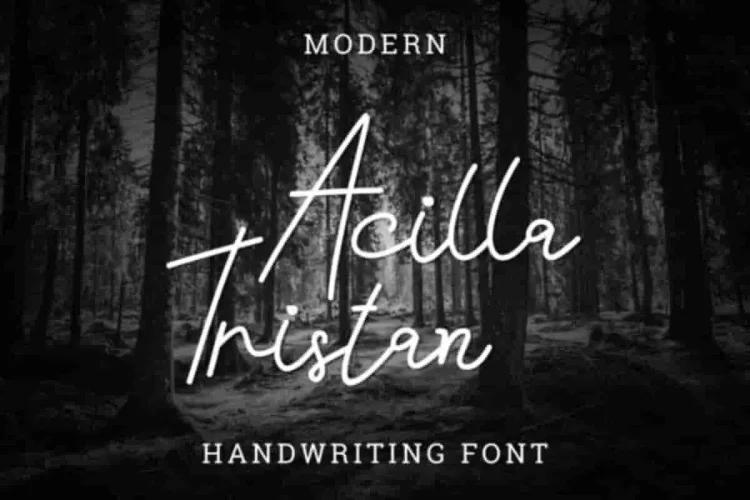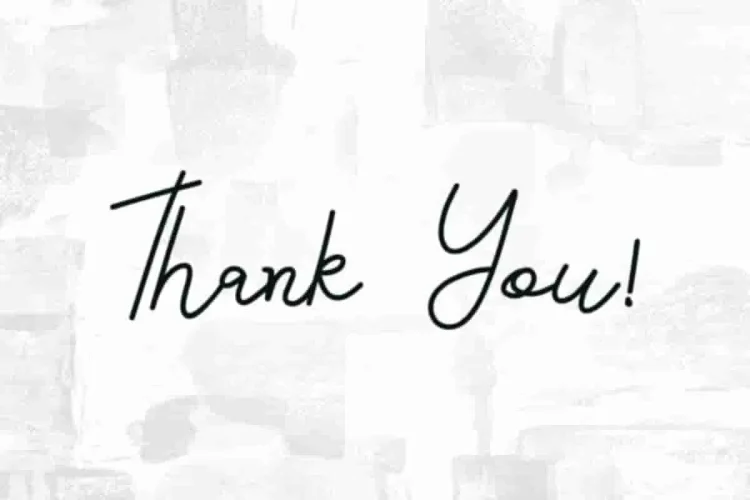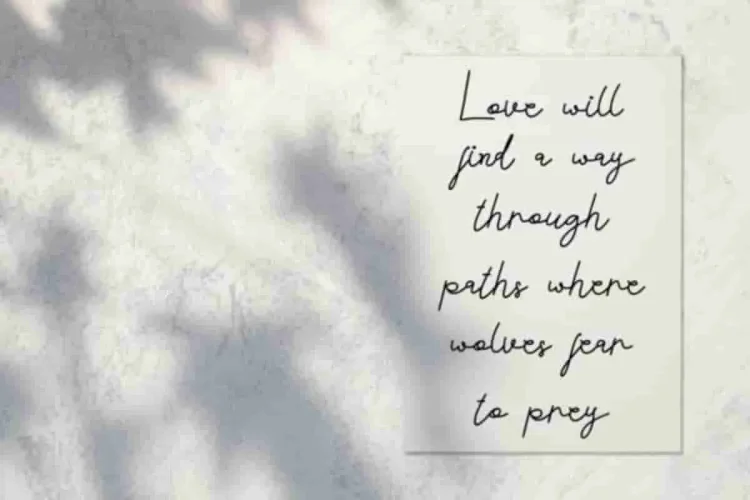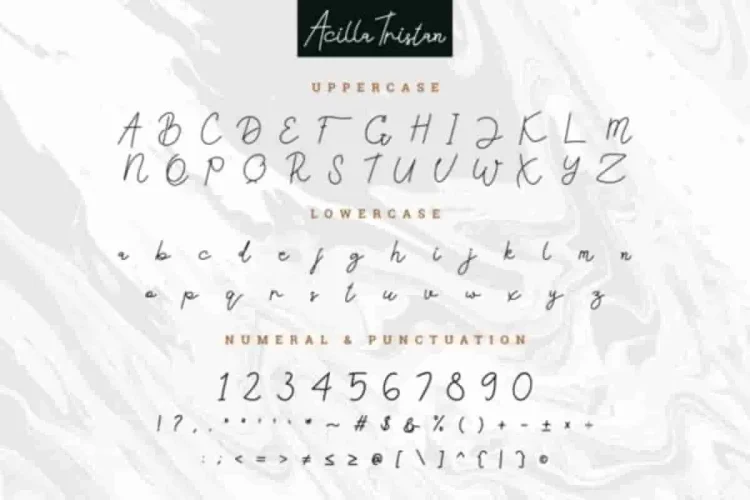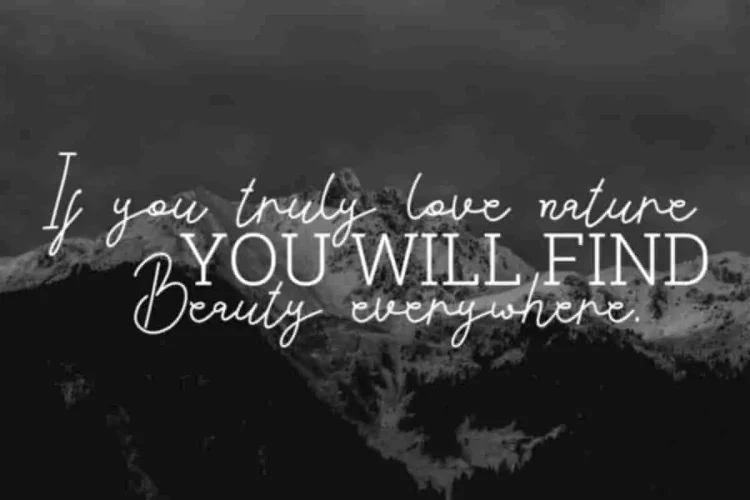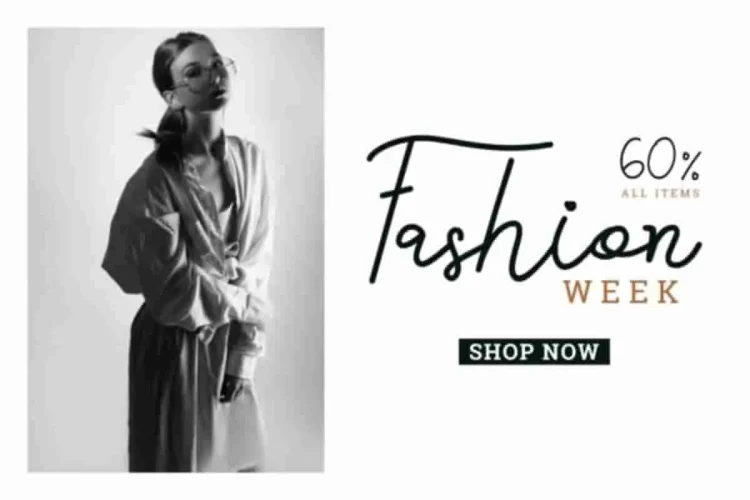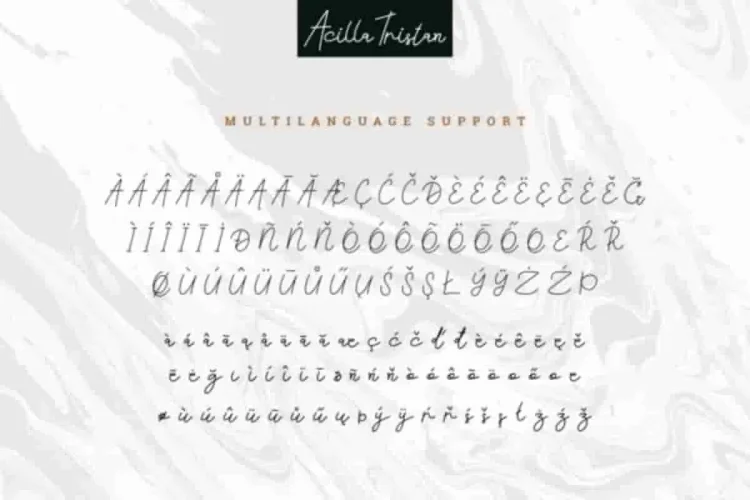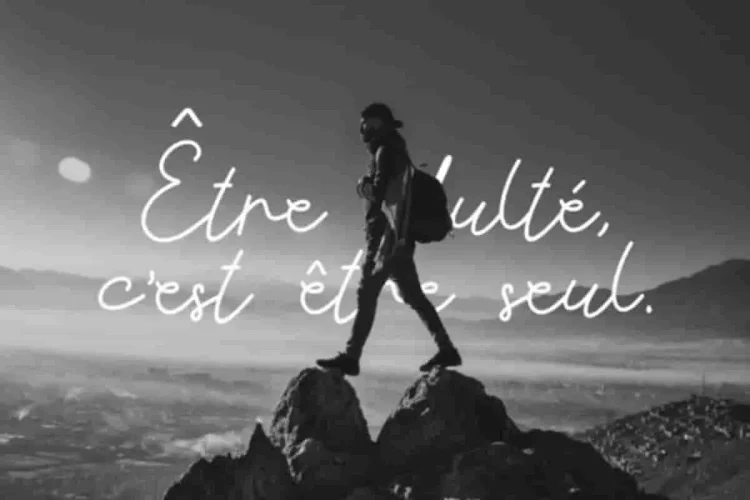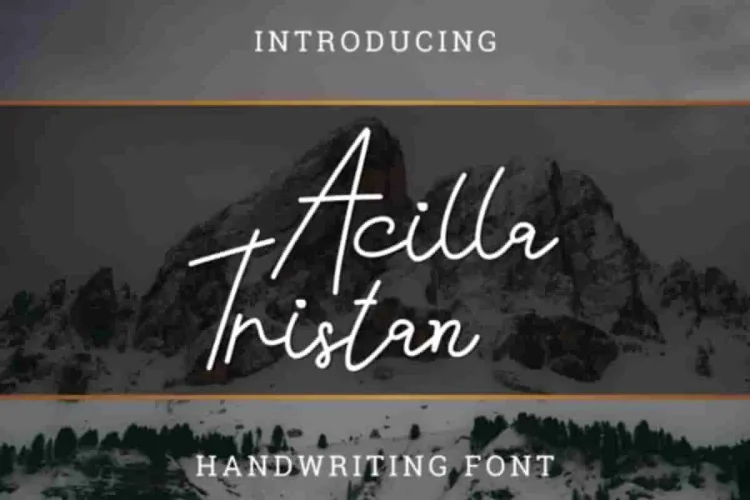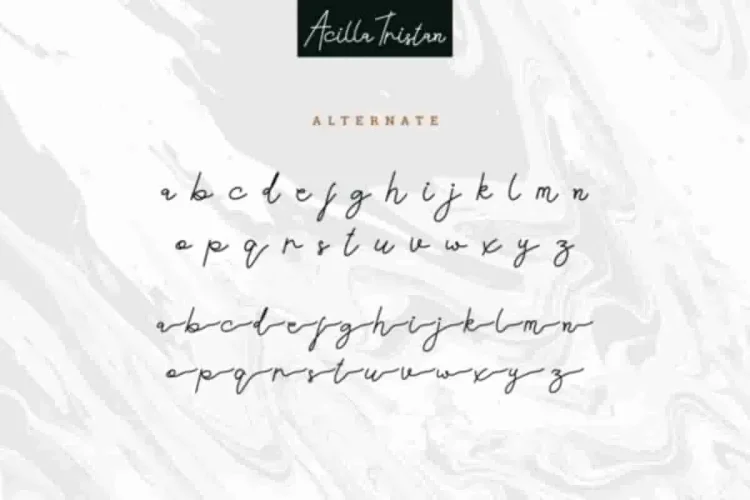
Acilla Tristan Handwriting Font
Edric Studio present to you : Acilla Tristan!
This is a classic signature script font. It has a unique, elegant, beautiful and stylish glyphs. If you’re searching for a font that combines classic charm with modern elegance, Acilla Tristan is the one for you.
😀What makes Acilla Tristan truly stand out?
It offers thin lines and flowing shapes for a stylish, high-end look. At the same time, it keeps excellent readability in both print and digital use.
It features unique, elegant, and stylish glyphs, offering you a wide range of style combinations. Whether you need a flowing signature or a bold headline, this font adapts beautifully.
Moreover, it supports multiple international languages, making it a great fit for global audiences.
This stunning signature script font is designed with elegant strokes and stylish curves. As a result, it’s perfect for branding, logo (with extended license), stationery, business card, signage, flyer, brochure etc. Its graceful form gives your text a handcrafted and sophisticated look, ideal for both personal and professional design.
Because of its refined appearance and smooth letterforms, Acilla Tristan has become a favorite among designers seeking a personal yet professional vibe.
So, if you’re looking for a signature font, Acilla Tristan is your perfect choice.